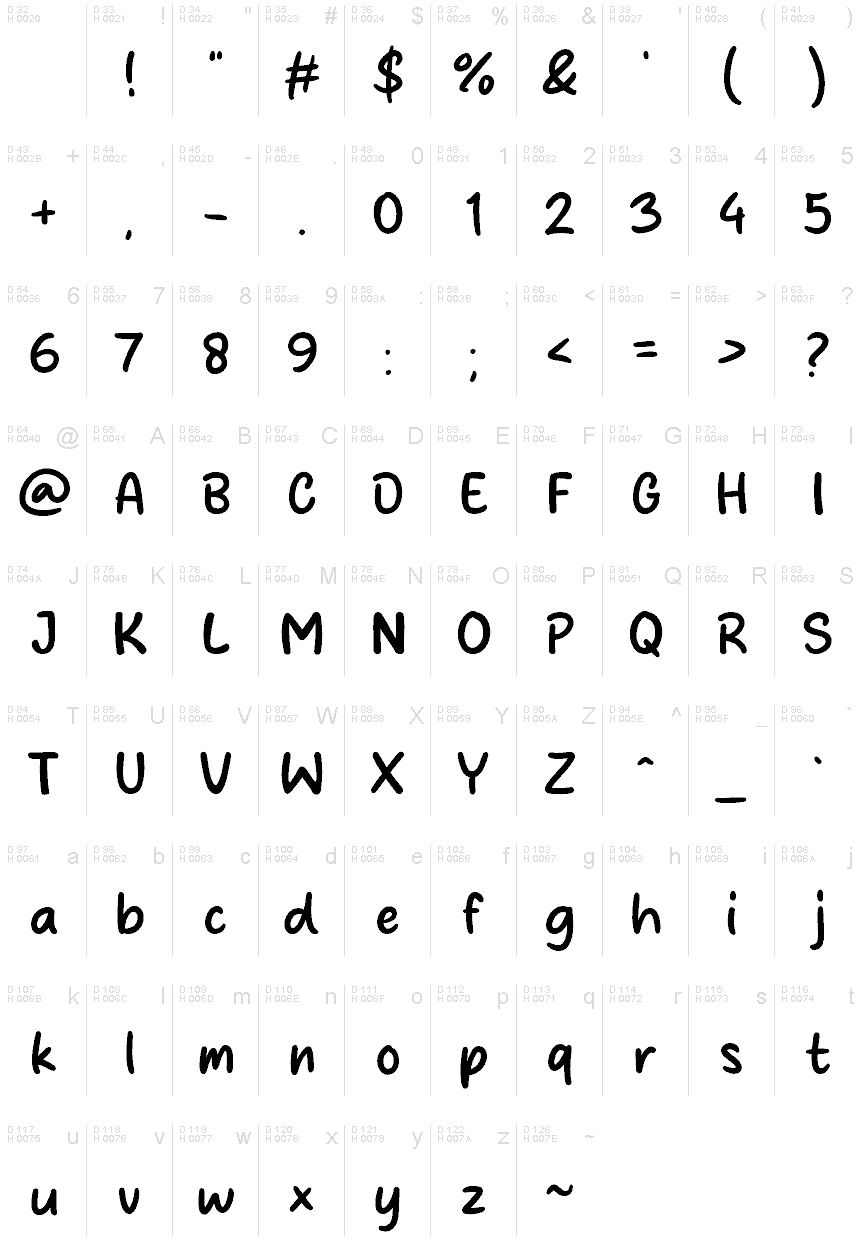
Bestiyam
Bestiyam font by MJType is a handwritten typeface that seamlessly blends casual charm with a modern edge. Its rounded and flowing characters exude an approachable aesthetic, making it perfect for projects seeking to convey authenticity and warmth. Each letter carries an organic feel reminiscent of natural handwriting, offering a personal touch to any design.
This free handwritten font is versatile for various applications such as logos, branding materials, website headers, product packaging, social media graphics, invitation cards, posters, book covers, business cards, and apparel designs. Bestiyam's relaxed elegance is the ideal choice for enhancing visual narratives.